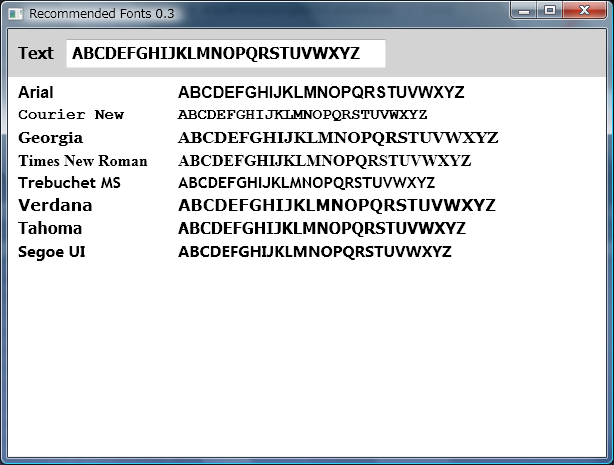
What is a Font?
A Font is a designed character set. In Windows, many programs have the ability to change fonts. Many fonts are installed into C:\Windows\Fonts folder. For example, this article uses "Segoe UI" font.
There are some common design patterns for fonts. Serif is a small line attached to the end of a stroke in a letter. Serif fonts have serif. Sans Serif fonts don't have serif.
There are two types of character width used in fonts. One is Fixed Pitch fonts that have a same character width. The other is Proportional fonts that have different width for each character.
What is a Glyph?
Glyph is a shape of each character.
Font Properties
There are four font properties in GraphicsWindow.
FontBold
If GraphicsWindow.FontBold is "True", font characters become thick. Default GraphicsWindow.FontBold value is "True".
FontItalic
If GraphicsWindow.FontItalic is "True", font characters become slant. Default GraphicsWindow.FontItalic value is "False".
FontName
GraphicsWindow.FontName contains font face name.
"Tahoma" is the default font name in local (in Small Basic IDE). "Segoe UI" is the default font name in remote (in smallbasic.com - Microsoft Small Basic Program Listing web site).
FontSize
GraphicsWindow.FontSize means the height [pixels] of characters. In some fonts such like "Tahoma", FontSize means the height between the top line and baseline. In some fonts such like "Courier New", FontSize means the height between the top line and the bottom line. You can recognize this with a sample program Font Sample 0.1 described below.
Default font size is 12 [pixels].
Recommended Fonts
I recommend you to use following six fonts because both Windows and Mac OS system pre-install these fonts.
| Font Name | Serif | Fixed Pitch |
| Arial | ||
| Courier New | ✔ | ✔ |
| Georgia | ✔ | |
| Times New Roman | ✔ | |
| Trebuchet MS | ||
| Verdana |
Recommended Fonts 0.3
This program shows recommended 6 fonts and 2 default fonts.
Fonts Sample 0.1
You can change font properties with this program. Also, you can measure the size of fonts with a ruler. You can move the ruler by dragging, and rotate by click.